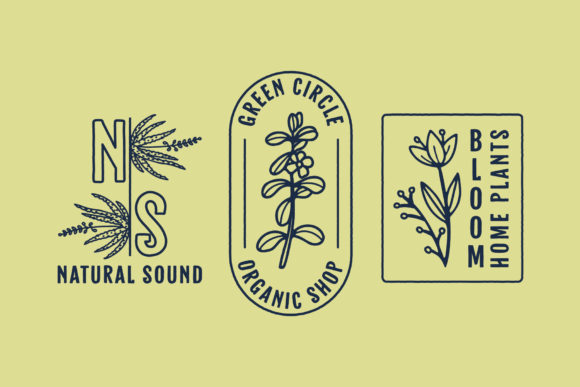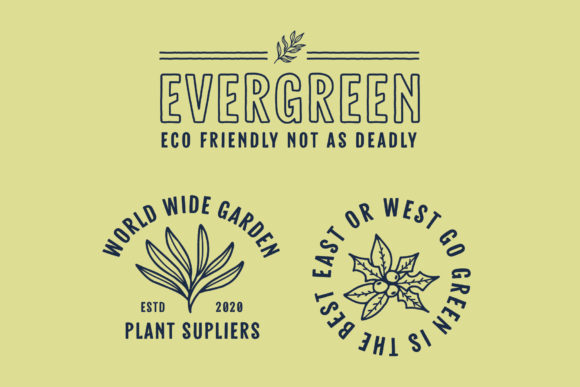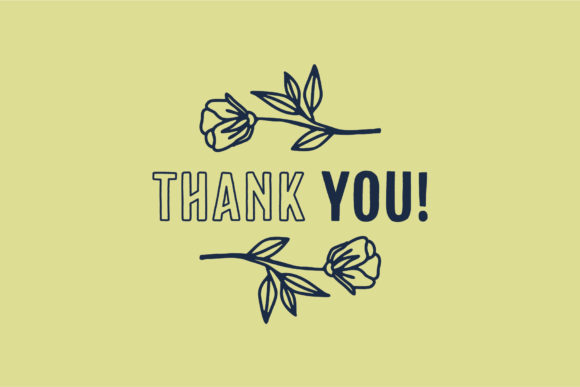
Introducing Floravian Font: A Timeless Retro Display Font
Are you a designer or crafter looking for a font that exudes a sense of nostalgia and vintage charm? Look no further than Floravian Font, a strong display font that is sure to elevate your creative projects. With its retro and vintage feel, Floravian Font is perfect for a wide range of applications, from logos and packaging to posters, t-shirts, and more.
What is Floravian Font?
Floravian Font is a carefully crafted display font that boasts a unique blend of retro and vintage elements. Its distinctive style is characterized by bold lines, classic curves, and a sense of nostalgia that is sure to transport your audience back in time. Whether you’re looking to create a logo, poster, or other visual material, Floravian Font is the perfect choice.
Key Features of Floravian Font
So, what makes Floravian Font so special? Here are just a few of its key features:
- Retro and Vintage Feel: Floravian Font has a distinctly retro and vintage feel that is sure to add a touch of nostalgia to your designs.
- Two Styles: Floravian Font comes in two styles: regular and outline. This allows you to choose the perfect style to suit your creative project.
- Strong Display Font: Floravian Font is a strong display font that is designed to make a statement. Its bold lines and classic curves make it perfect for headlines, titles, and other display text.
- Highly Versatile: Floravian Font is incredibly versatile and can be used for a wide range of applications, from logos and packaging to posters, t-shirts, and more.
Uses for Floravian Font
So, what can you use Floravian Font for? The possibilities are endless! Here are just a few ideas to get you started:
- Logos: Floravian Font is perfect for creating logos that need to make a statement. Its bold lines and classic curves make it ideal for businesses that want to convey a sense of tradition and heritage.
- Packaging: Add a touch of vintage charm to your product packaging with Floravian Font. Its retro feel is sure to stand out on store shelves.
- Posters: Create eye-catching posters with Floravian Font. Its strong display style is perfect for headlines and titles.
- T-Shirts: Floravian Font is a great choice for t-shirt designs. Its bold lines and classic curves make it easy to read and visually appealing.
Why Choose Floravian Font?
So, why should you choose Floravian Font for your next creative project? Here are just a few reasons:
- Unique Style: Floravian Font has a unique style that is sure to set your designs apart from the crowd.
- High-Quality Design: Floravian Font is a high-quality font that is designed to look great in any context.